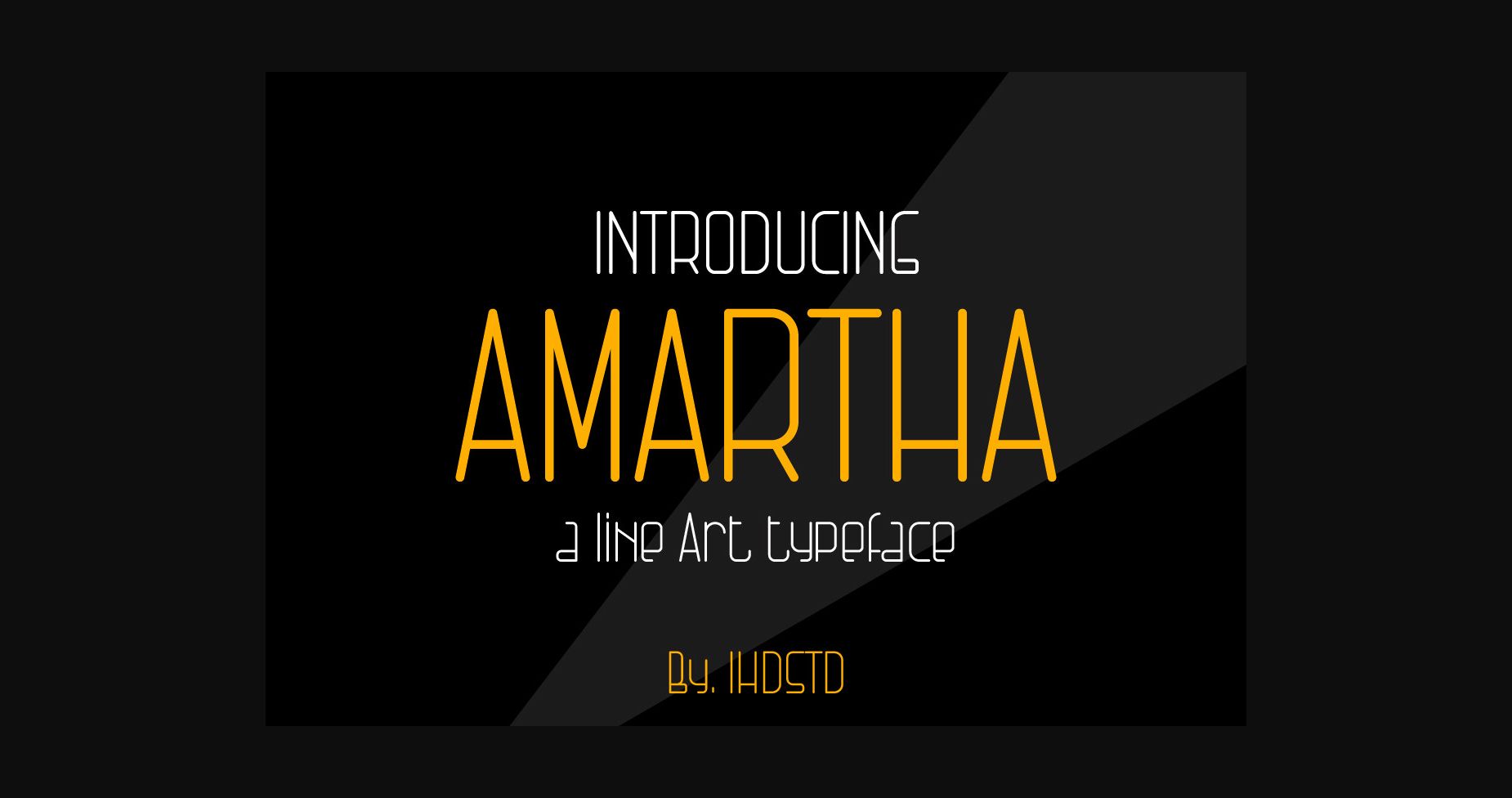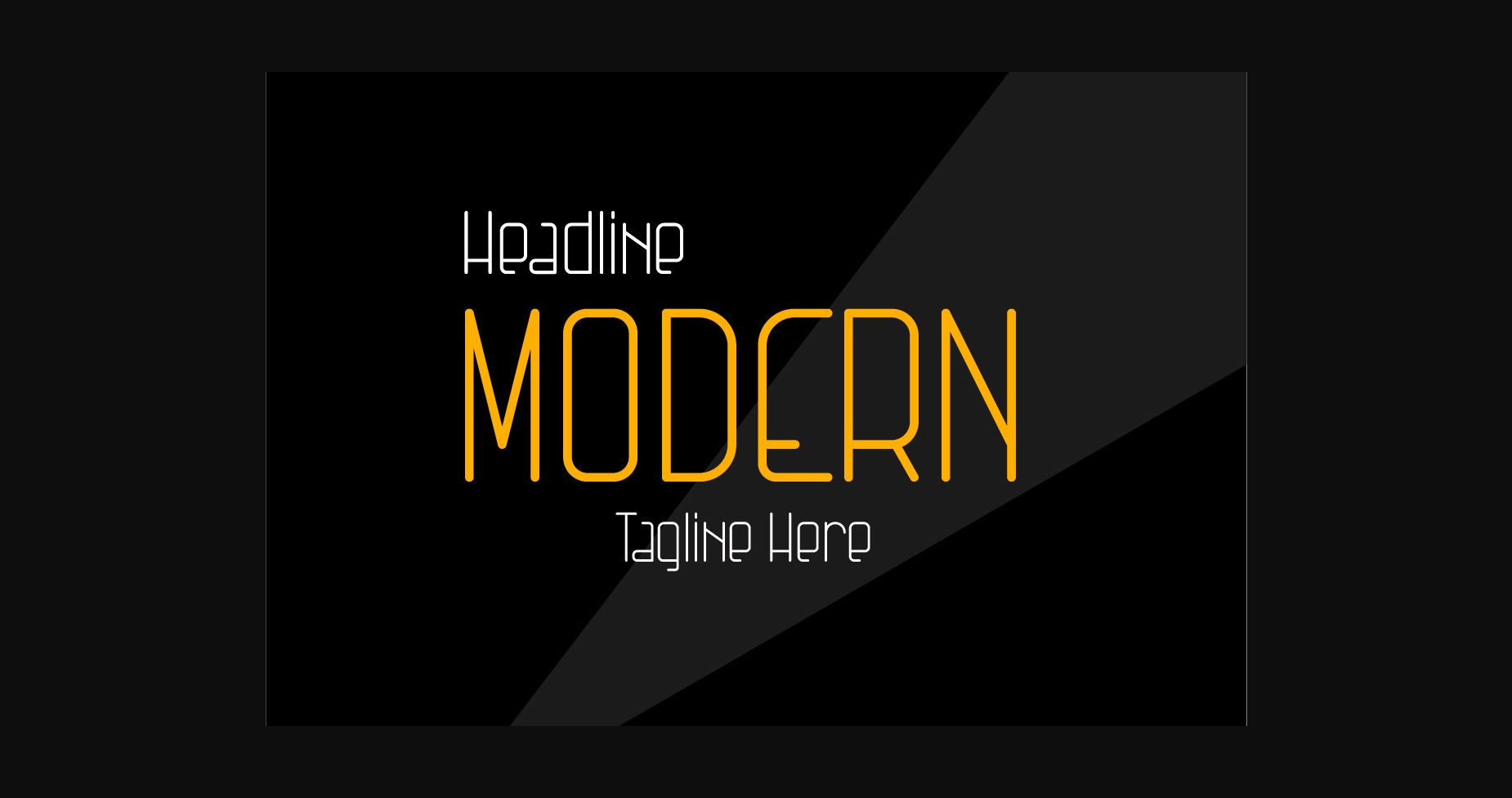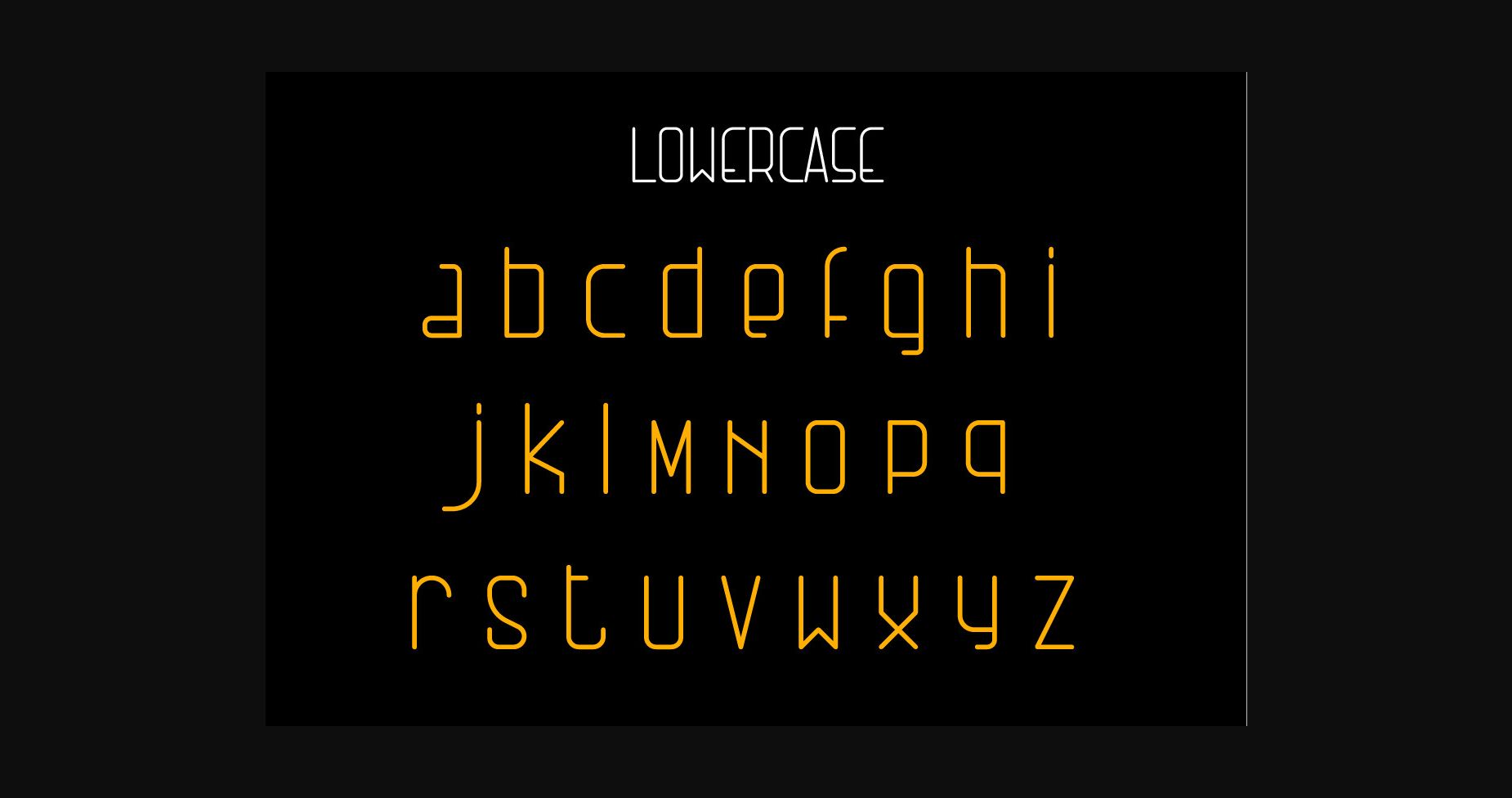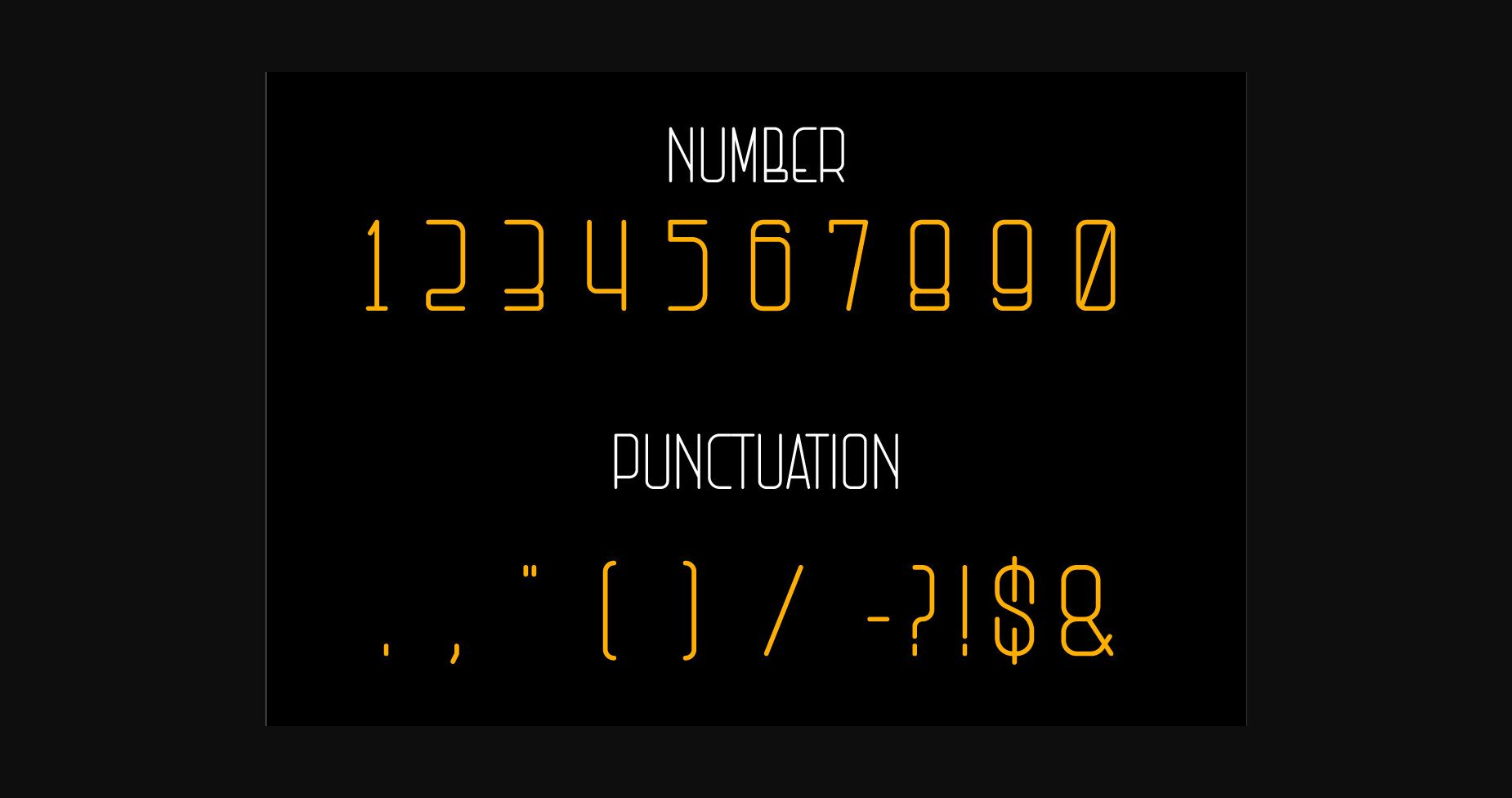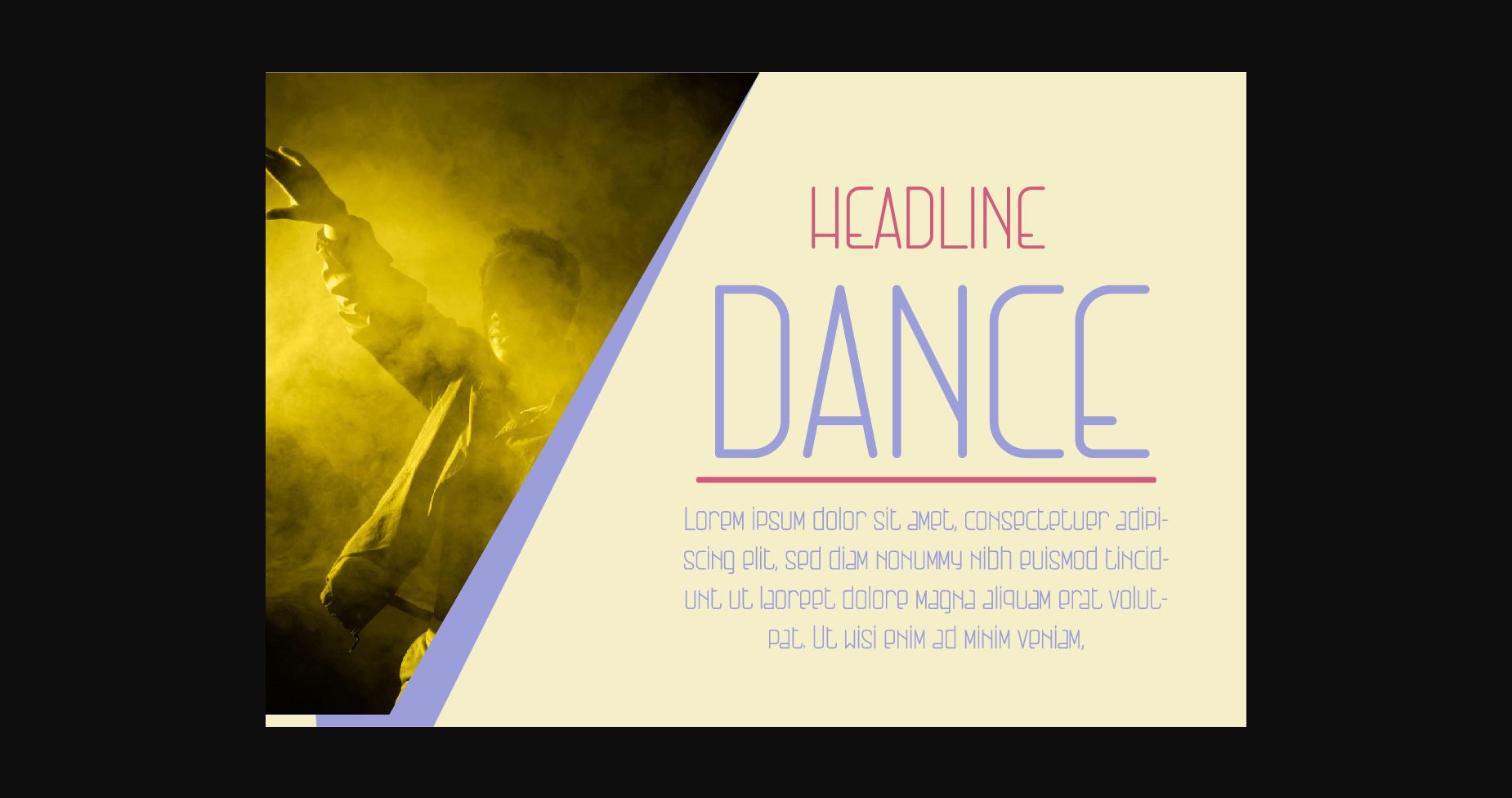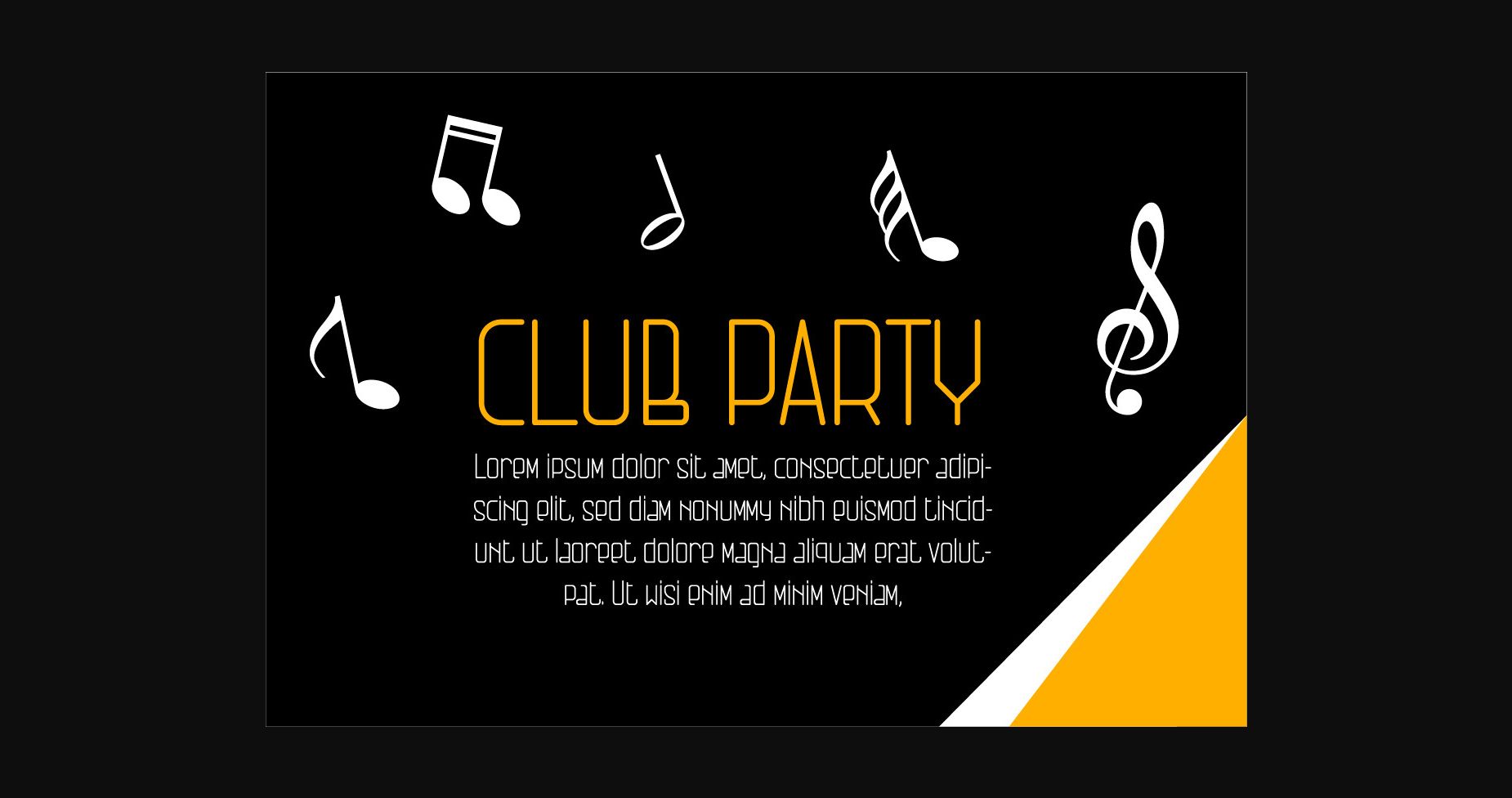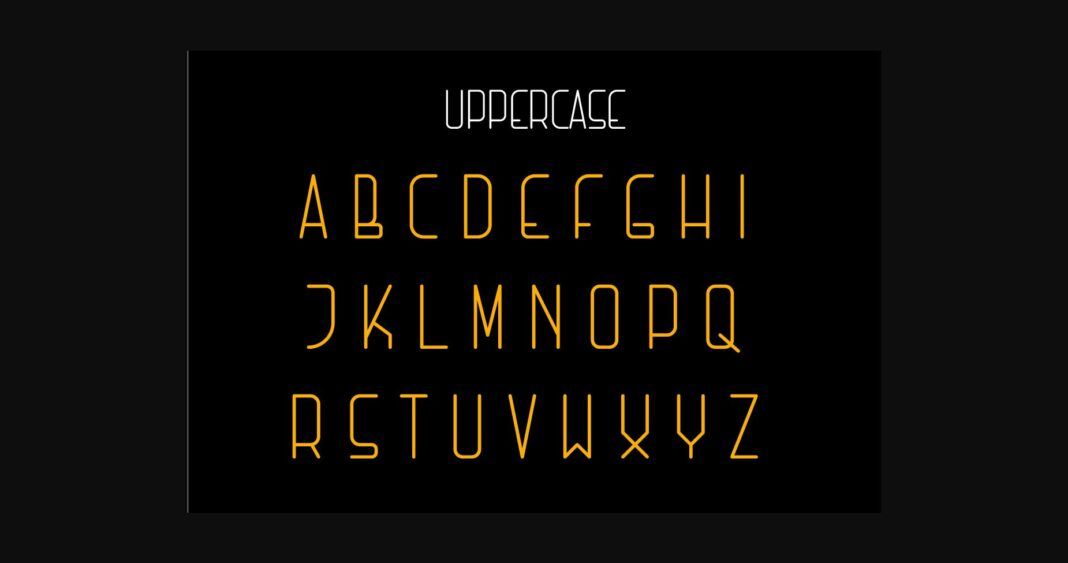
HomeSans Serif FontsAmartha Font Sans Serif Fonts Amartha Font FacebookXPinterestWhatsApp 1 of 9 ... Amartha Font Poster 2... Amartha Font Poster 3... Amartha Font Poster 4... Amartha Font Poster 5... Amartha Font Poster 6... Amartha Font Poster 7... Amartha Font Poster 8... Amartha Font Poster 9... About Amartha Font Amartha is a clean, neat and adaptable sans serif font. No matter the topic, this font will be an incredible asset to your fonts’ library, as it has the potential to elevate any creation. DOWNLOAD NOW People also explored Dream of Spring Font Naora Font Claudia Laura Font Spicyholic Font Crushine Font I Am Joyful Font Wander Font Alexandria Font Wonder Justice 325 0 TagsAmarthaAmartha Font Previous articleFlavor Sans FontNext articleKimberly Font LEAVE A REPLY Cancel reply Comment: Please enter your comment! Name:* Please enter your name here Email:* You have entered an incorrect email address! Please enter your email address here Website: Save my name, email, and website in this browser for the next time I comment. Personal Use Free Better Together Duo Personal Use Free Read more about this font Sushi Stroke Personal Use Free Read more about this font Comic Caps Personal Use Free Read more about this font Evensong Hollow Personal Use Free Read more about this font BLOG 5 Fonts That Will Dominate Design Trends in 2026 5 Fonts for 2026 That Will Dominate Design Trends Typography plays a critical role in visual communication, and as we look ahead to 2026, it’s... Modern Sans-Serif Fonts That Brands Love in 2025 How to Install and Use Fonts on Windows, macOS, and Web Projects Elegant Wedding Invitation Fonts – Handwritten & Script Fonts